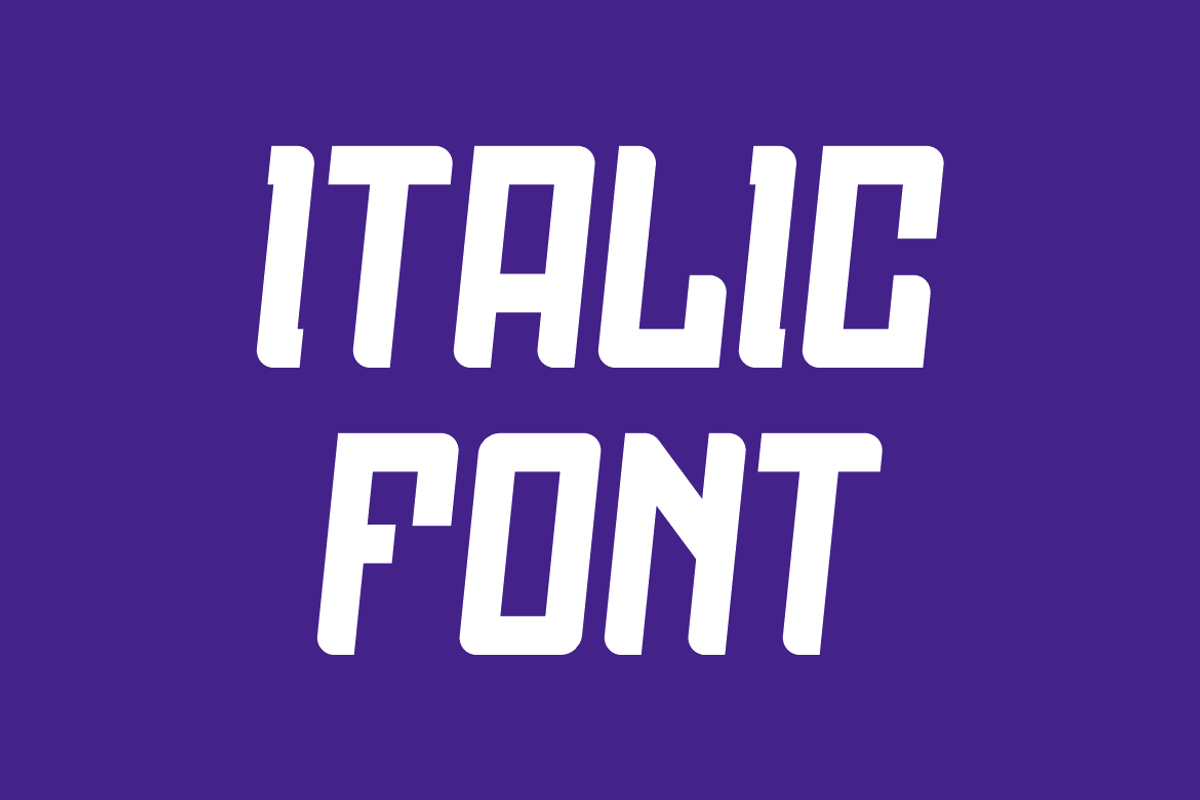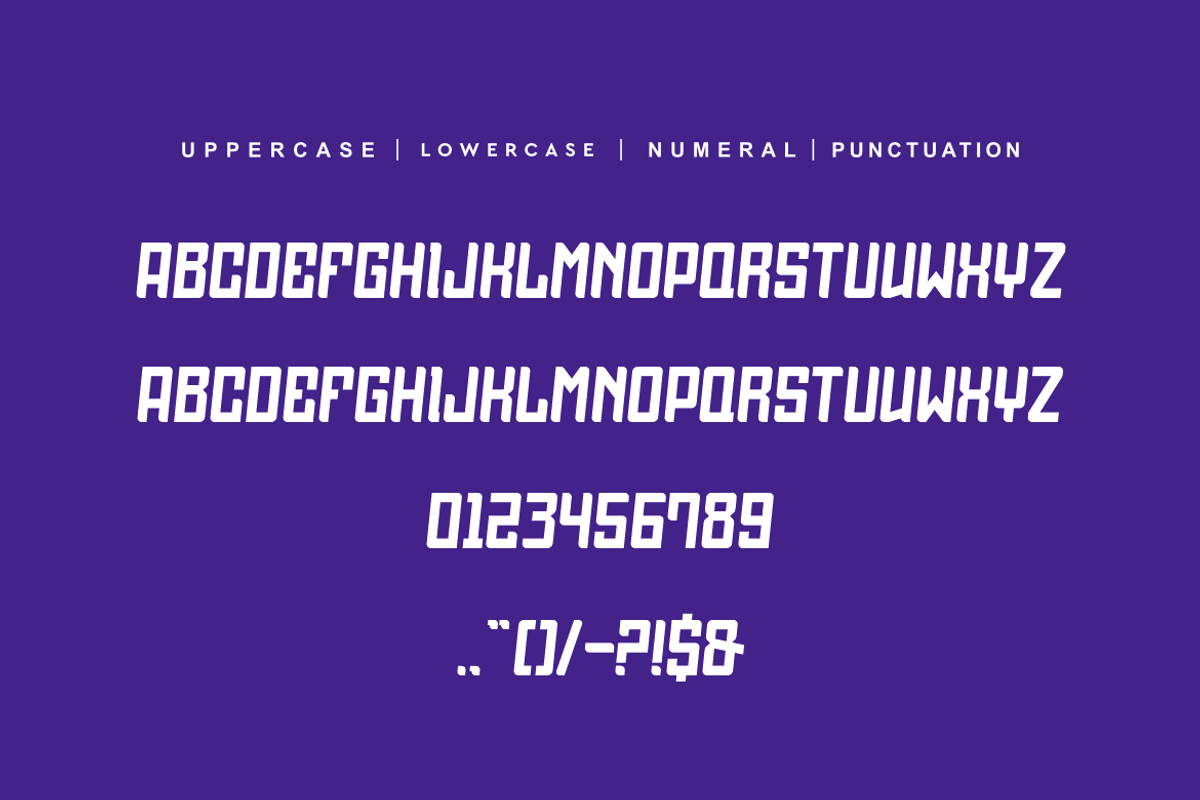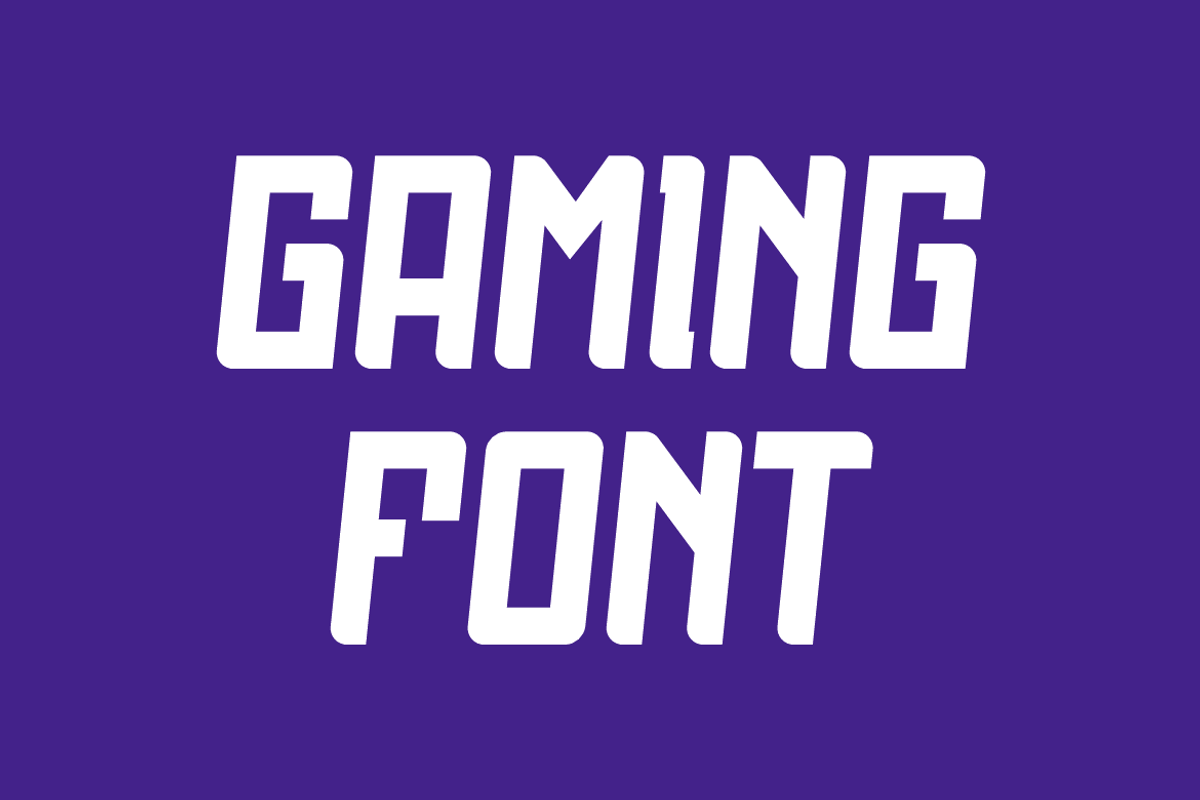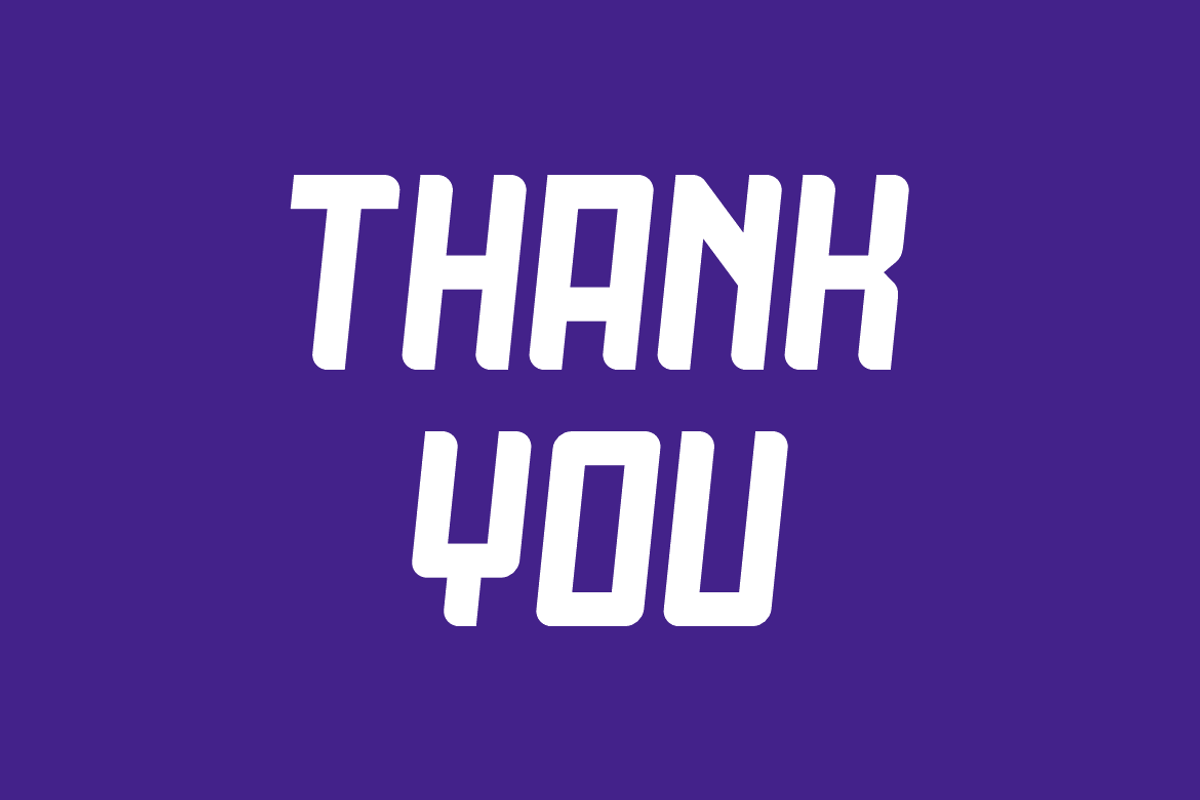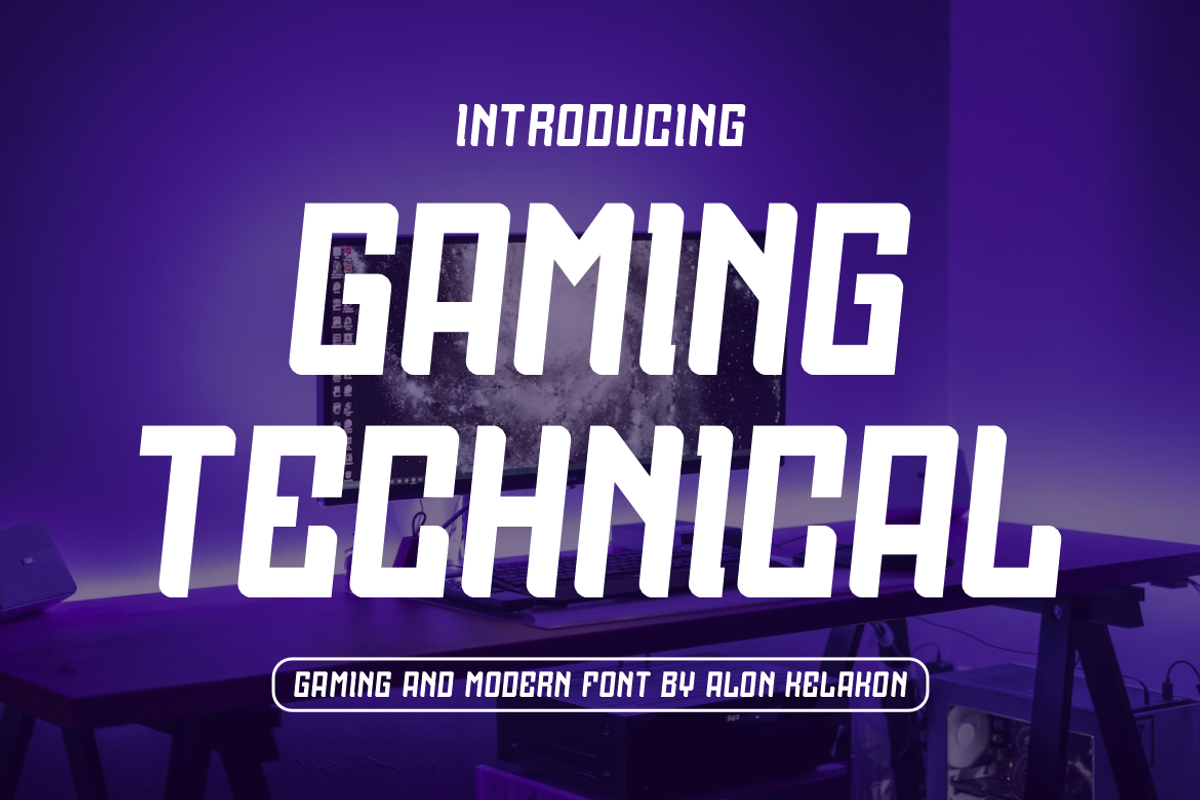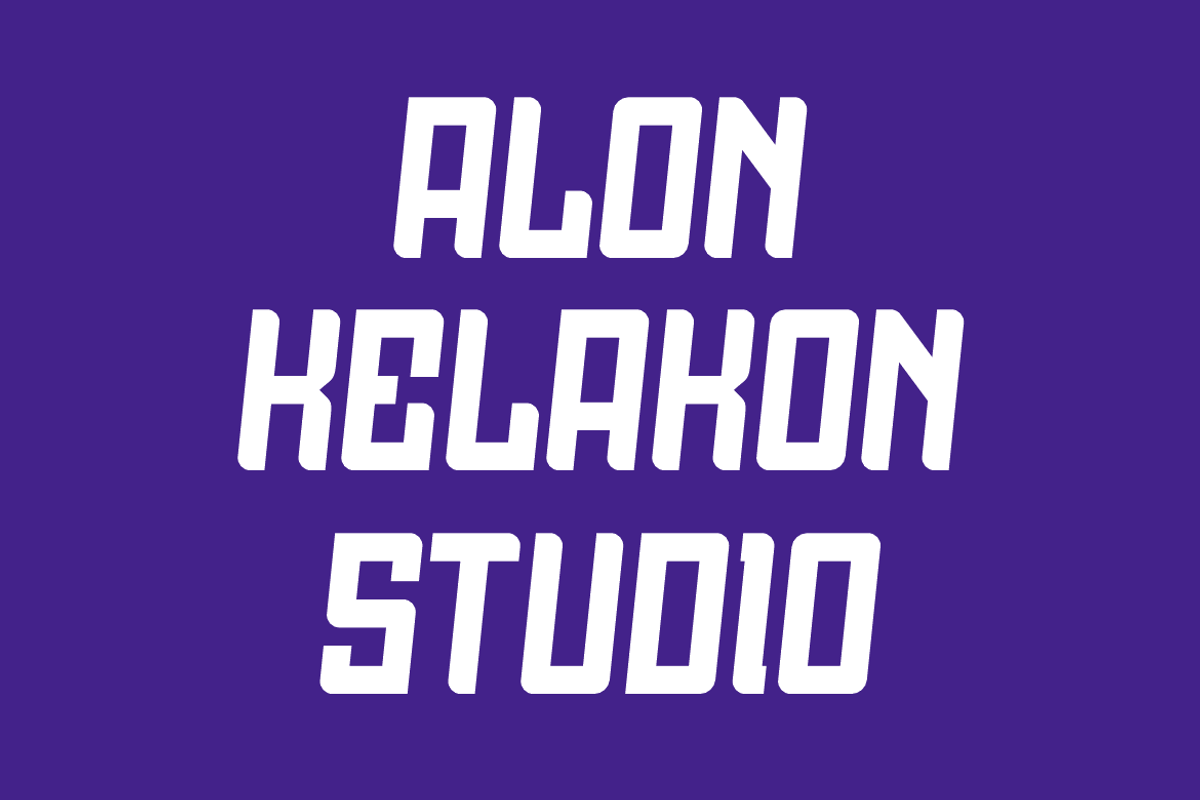
Gaming Technical
Gaming Technical Font is unique . Ready to use for your design like labeling, movie sceen, poster, movie title, gigs, album covers, logos, and much more.